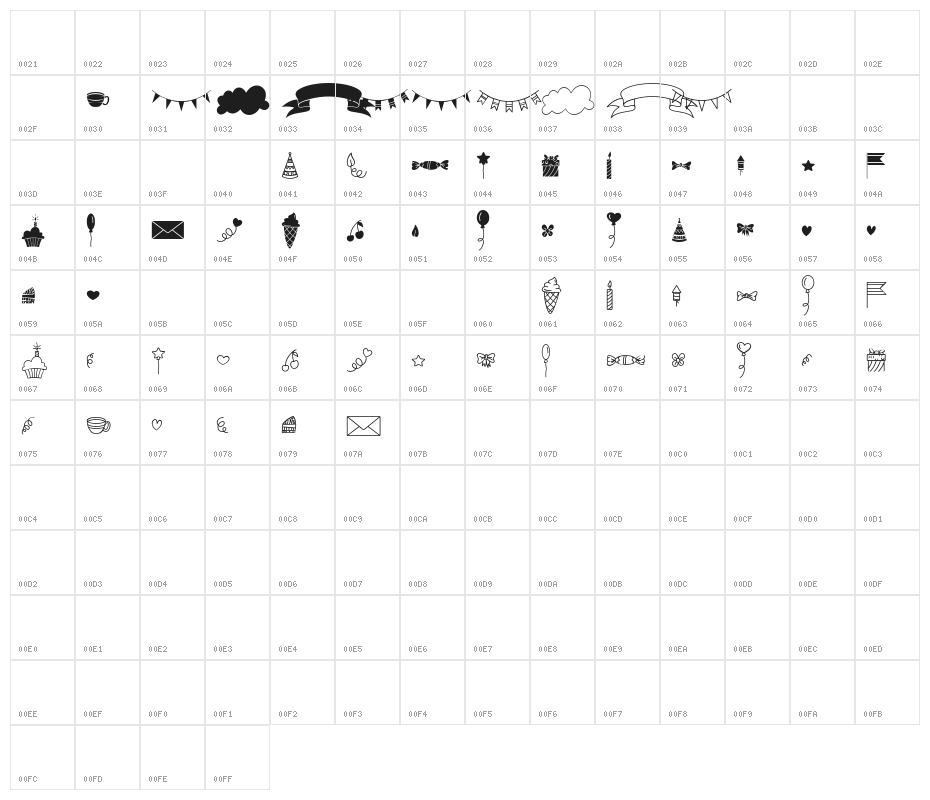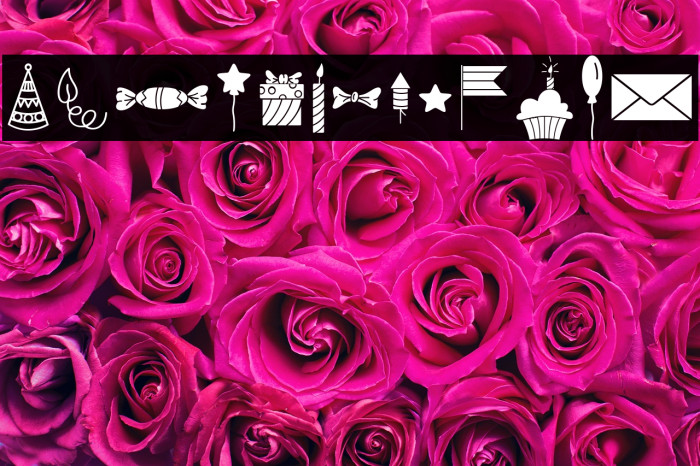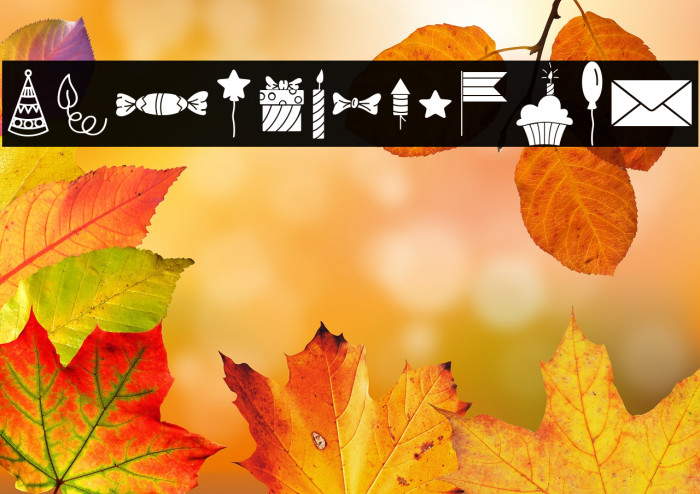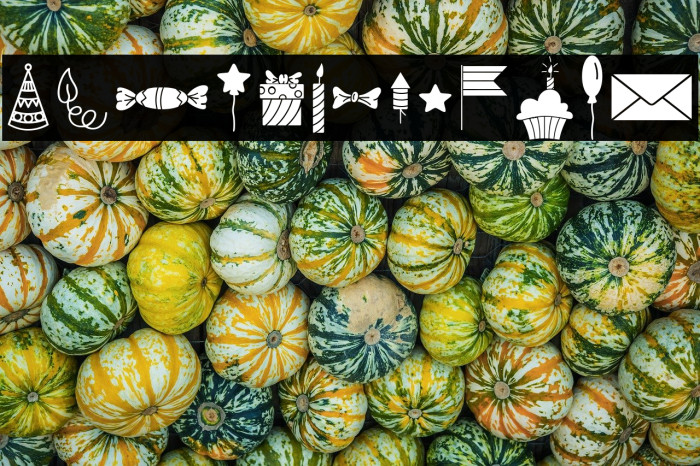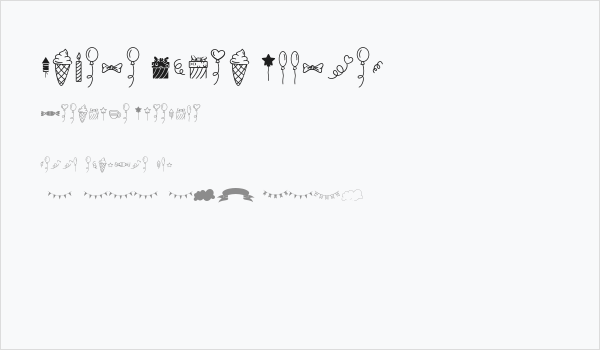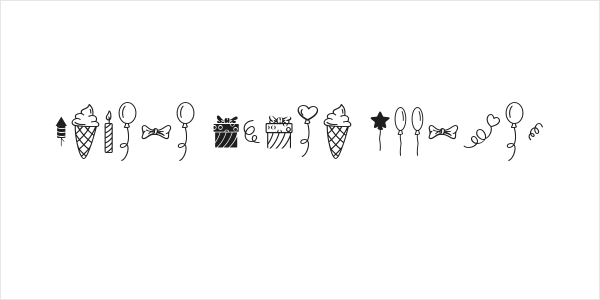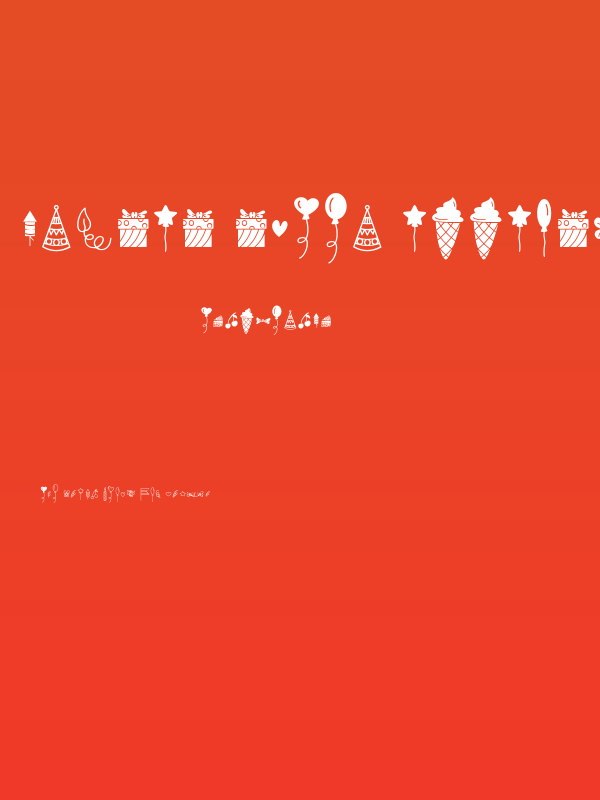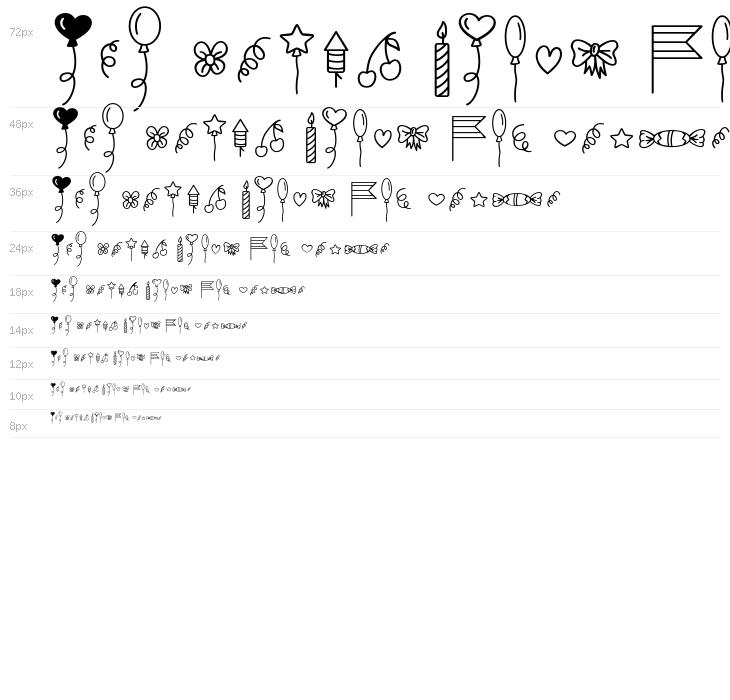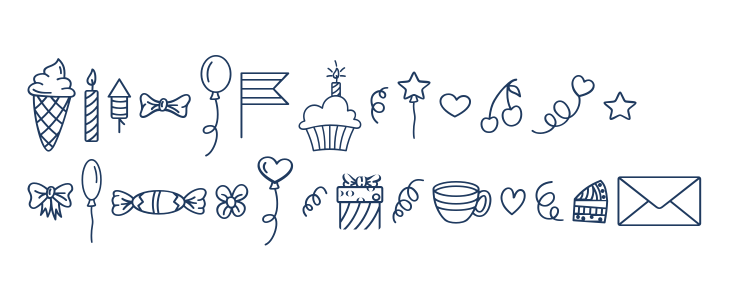
Habede Extra Doodles Font
Habede Extra Doodles Description
This collection features a whimsical assortment of doodles perfect for adding a playful touch to any project. The designs include party hats, balloons, cupcakes, stars, and other festive elements, each crafted with a hand-drawn aesthetic. The doodles are characterized by their bold outlines and simple, yet charming details, making them versatile for various creative applications. The style is consistent throughout, offering a cohesive look that can enhance invitations, greeting cards, and digital content. The elements are designed to evoke a sense of celebration and joy, making them ideal for festive occasions.
| Use Case | Logos, Headlines, Decorative elements |
| Proposed Projects | Ideal for party invitations, greeting cards, scrapbooking, and digital content creation. |